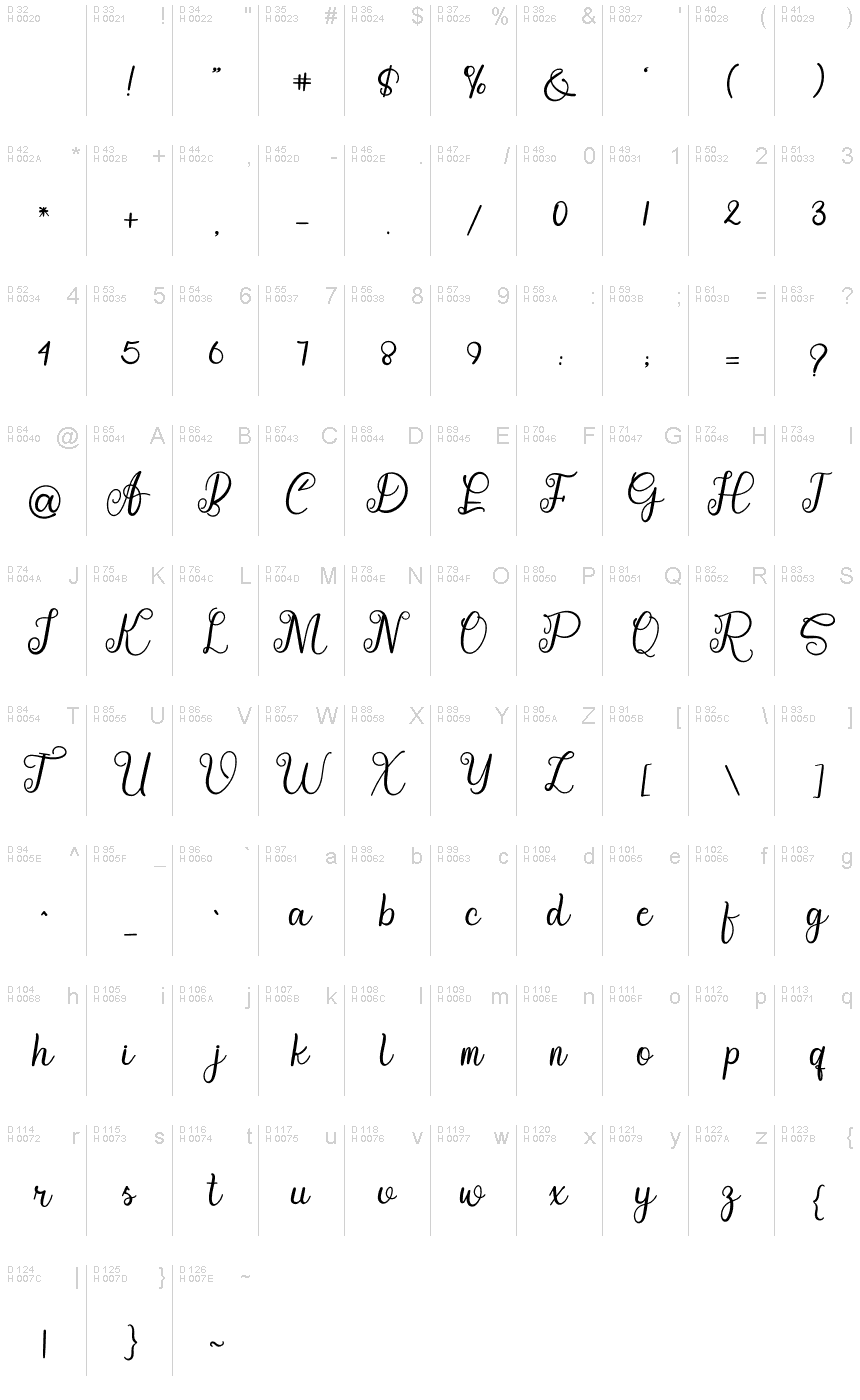
Monthya
Monthya is a light, curly calligraphy font designed by FreshtypeINK. Perfect for adding a unique touch to invitations, greeting cards and logos, this font is sure to make your project stand out.